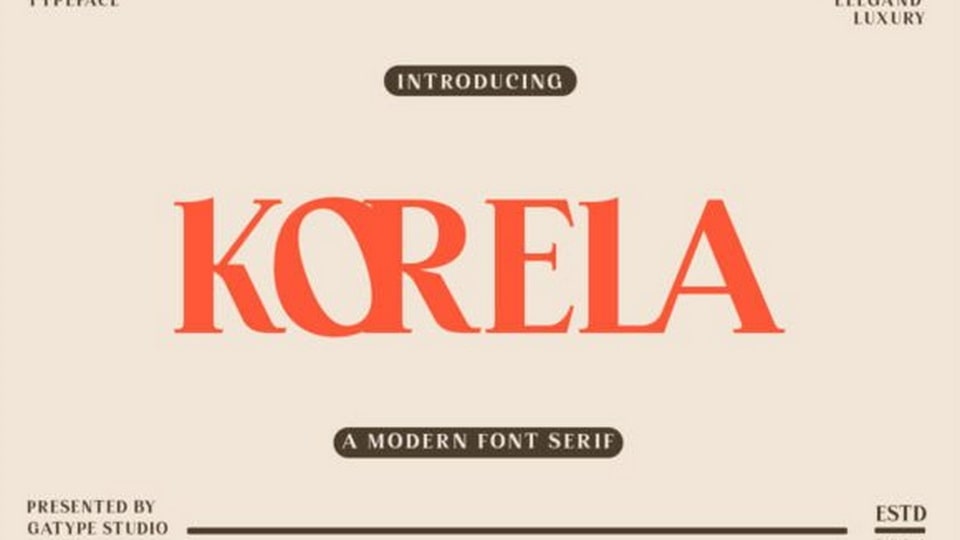
Download Korela Display font, a modern typeface with a clean and minimalist design. The letter design is bold and clear, with a consistent thickness and suitable for various text sizes.